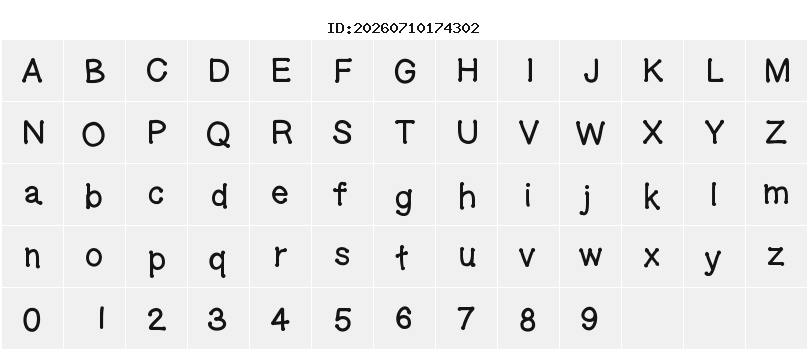
• Font Name: GelDoticaPlainLowerCaseThick
• Full Font Name: GelDoticaPlainLowerCaseThick
• PostScript Name: GelDoticaPlainLowerCaseThick
About GelDoticaPlainLowerCaseThick.ttf
GelDoticaPlainLowerCaseThick.ttf is a modern, elegant sans-serif font designed for ultimate readability and visual harmony. Perfect for branding, headlines, web design, and print materials.